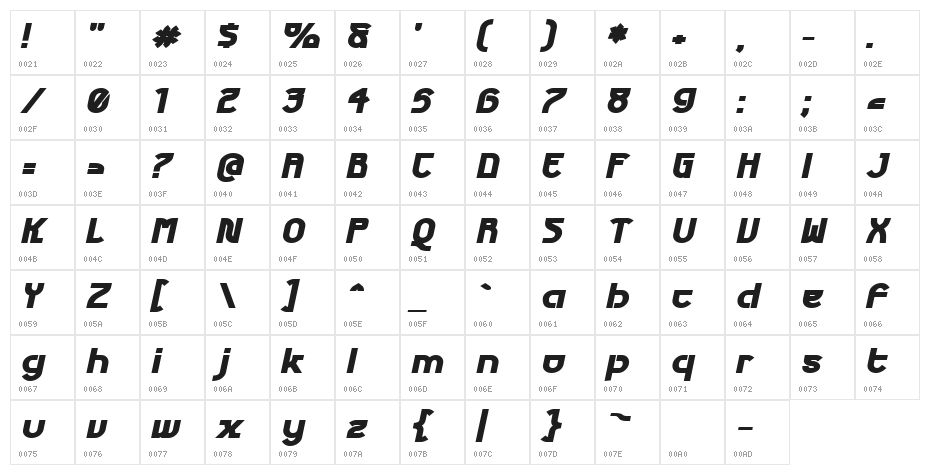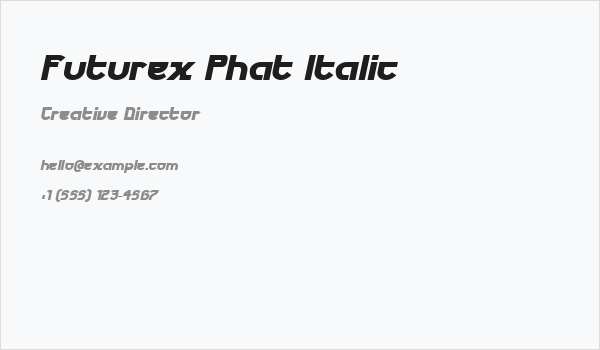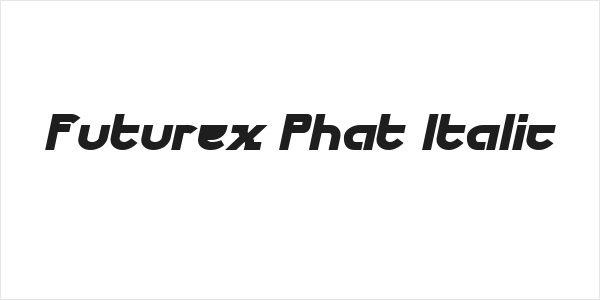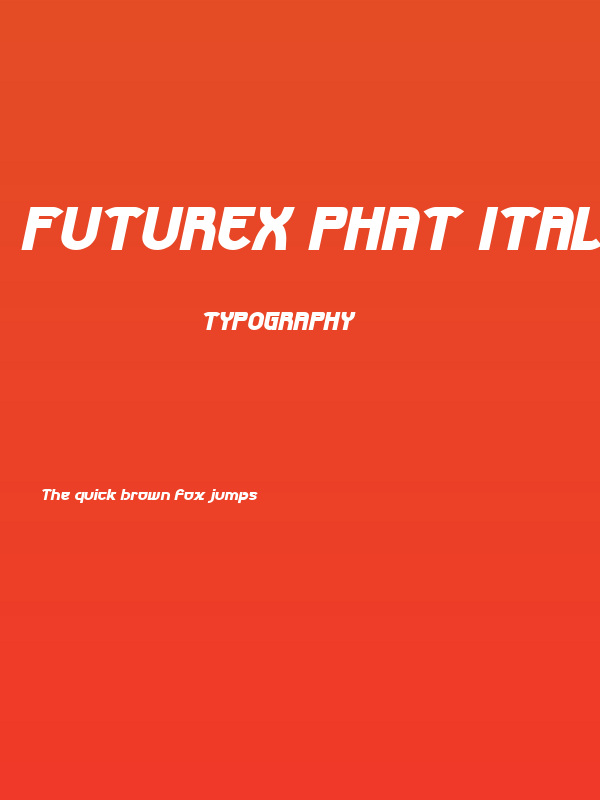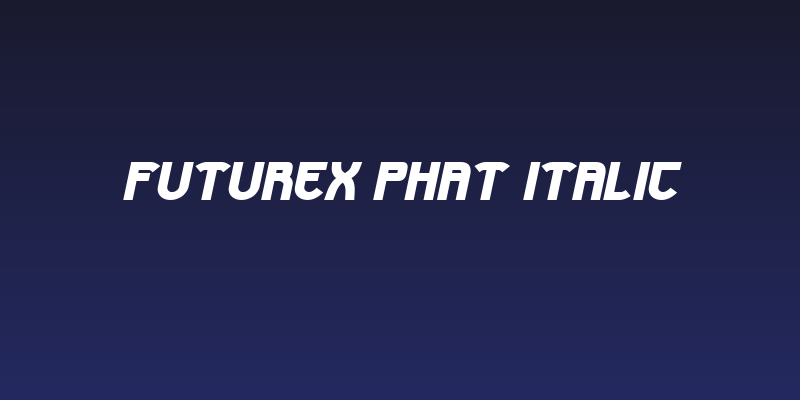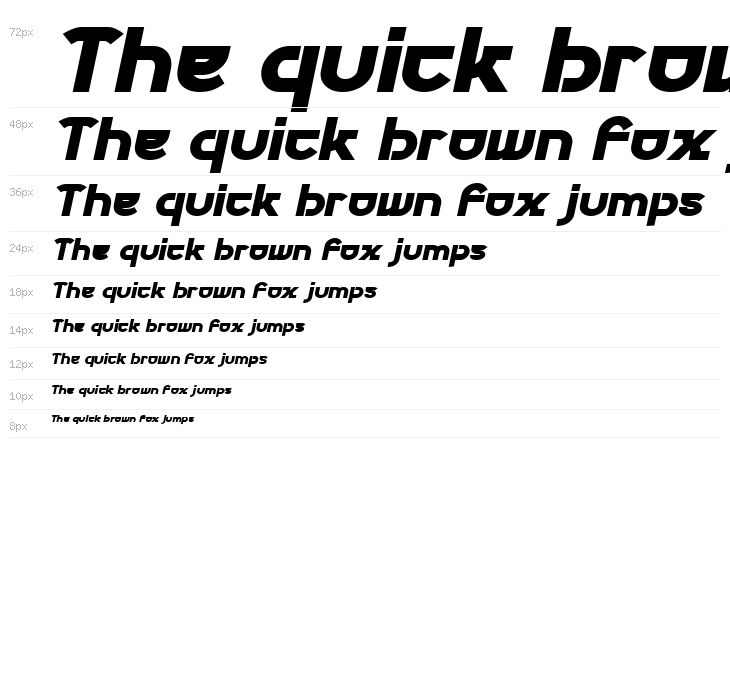
Futurex Phat Italic Font
Futurex Phat Italic Description
This font features a bold and dynamic style with a distinct italic slant, giving it a sense of motion and energy. The characters are wide and robust, with sharp angles and a futuristic aesthetic. The uppercase letters are particularly striking, with a strong presence that commands attention. The lowercase letters maintain the same boldness, ensuring consistency across text. Numbers and special characters are equally bold, making them stand out effectively. The overall design is modern and impactful, suitable for projects that require a strong visual statement.
| Proposed Projects | Ideal for branding, advertising, posters, and any project needing a bold, modern look. |